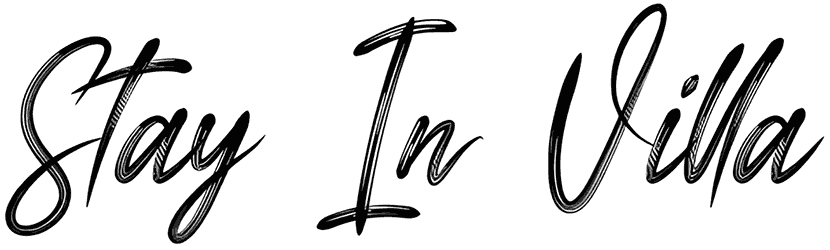
The Gaston Swisea Font
Check out The Gaston Swisea, a dry brush font with a natural hand-made touch. It has a subtle, cursive style that delivers extra fun and makes your design look more appealing. This font will work perfectly for movie posters, party invitations, YouTube/ blog text, greeting cards, and branding materials. Hope you enjoy it!